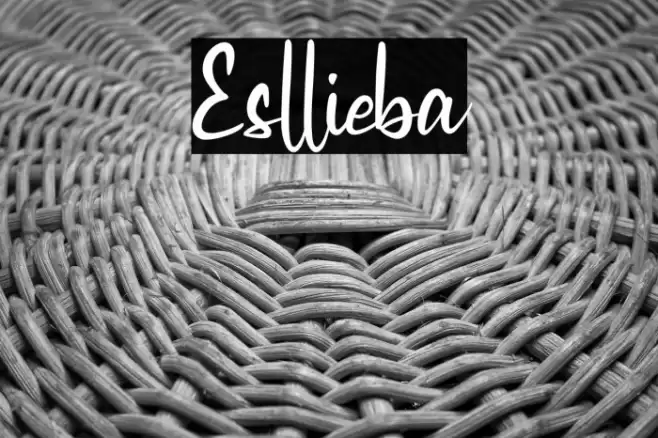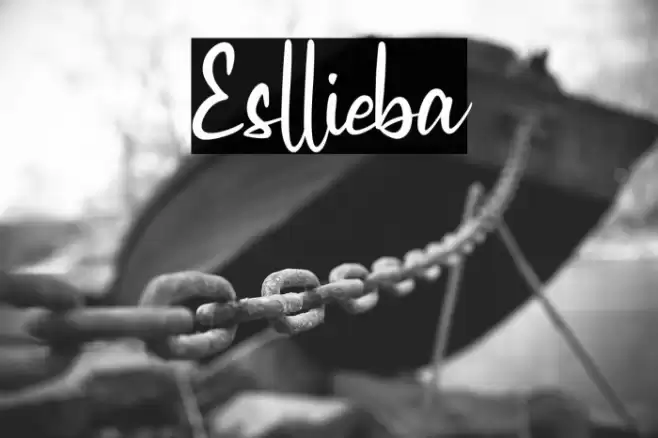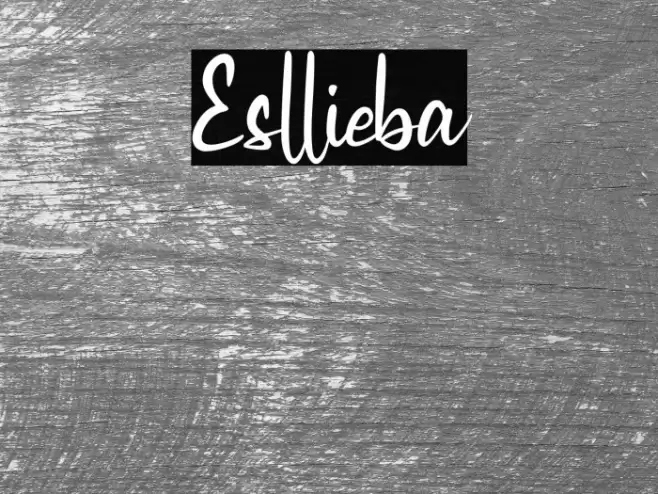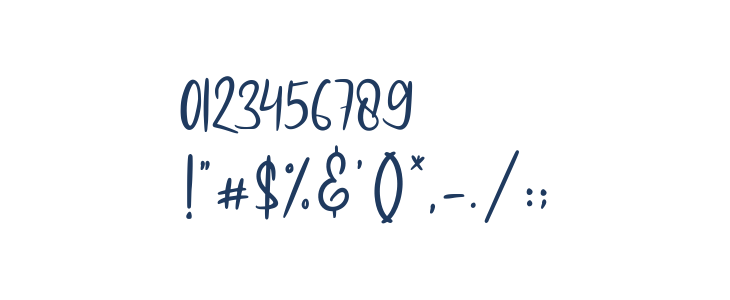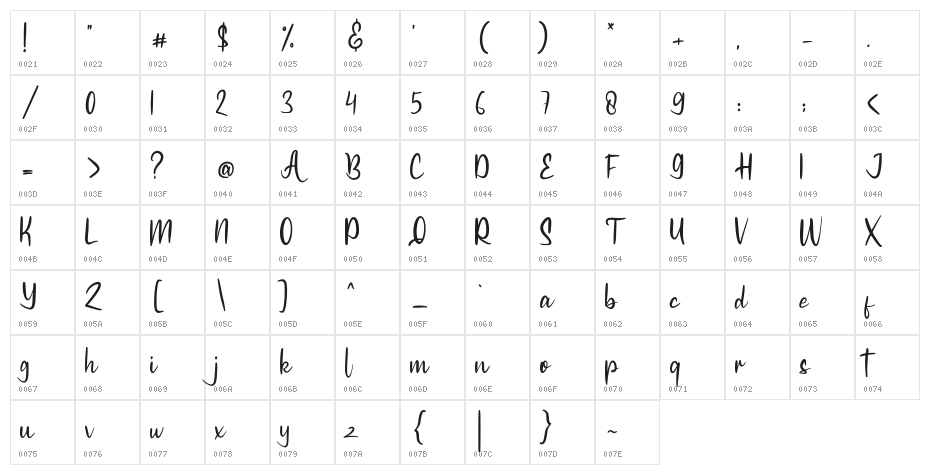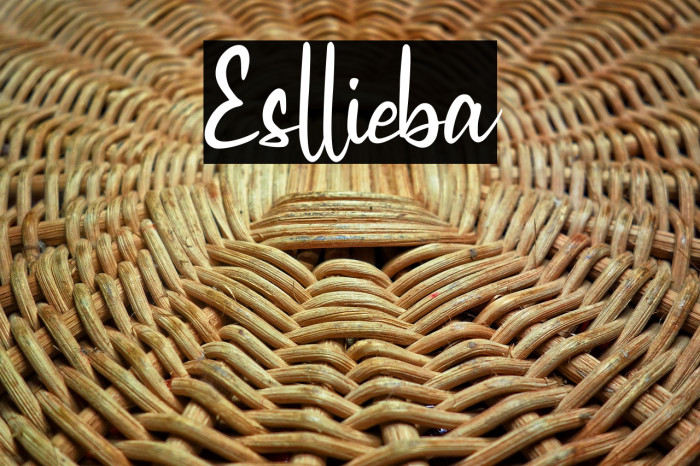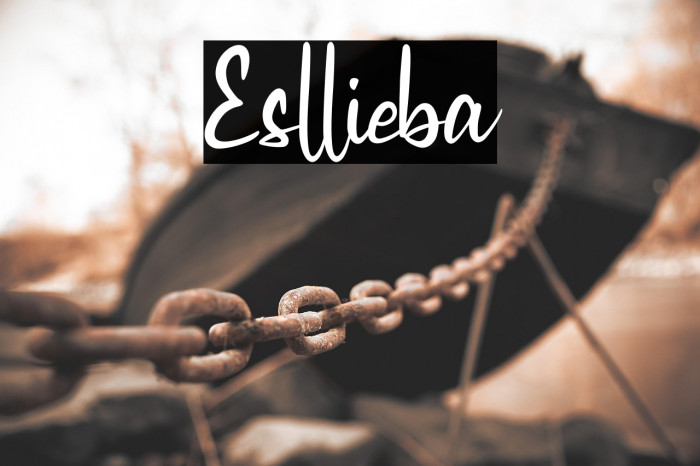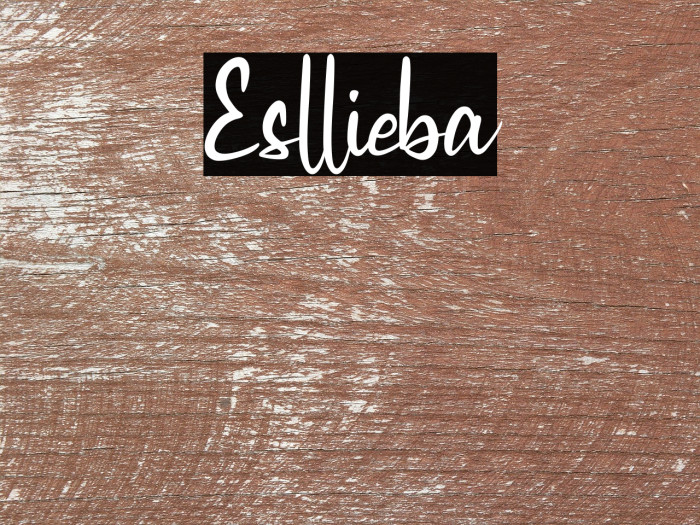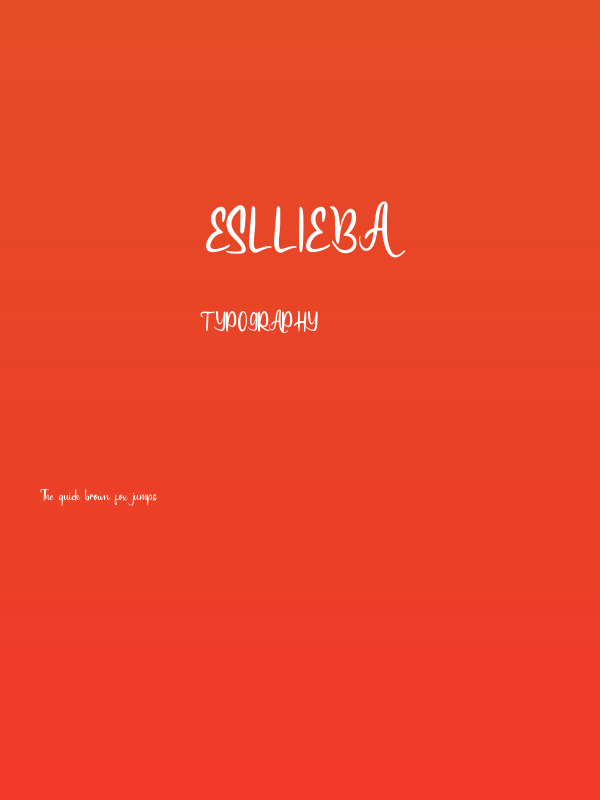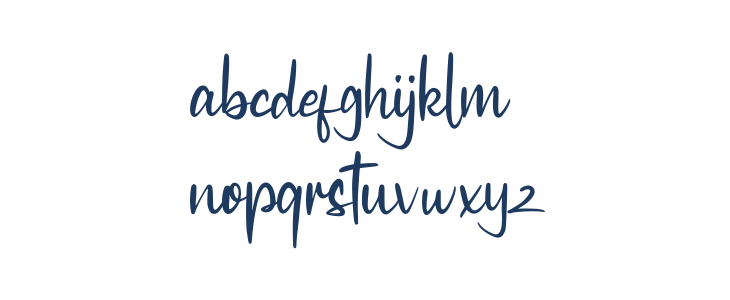
Esllieba Font
Esllieba Description
This font features a lively and expressive handwritten style, characterized by its fluid and dynamic strokes. The uppercase letters are bold and slightly slanted, giving a sense of movement and energy. The lowercase letters maintain a consistent flow, with some characters extending below the baseline, adding to the casual and informal feel. The numerals are clear and legible, matching the playful nature of the alphabet. Special characters are integrated seamlessly, maintaining the overall aesthetic. This font's unique style makes it suitable for creative and artistic projects.
A lively, expressive handwritten font with dynamic strokes from Regular fonts.
- Proposed Projects: Ideal for greeting cards, invitations, posters, and branding that requires a personal touch.